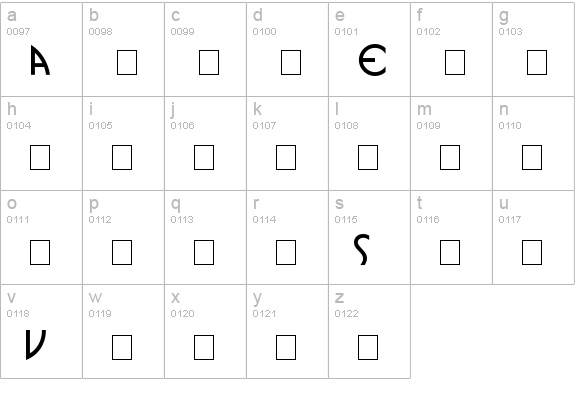
Martella Font Details
Martella is a stunning and versatile font that combines elegance with a touch of contemporary flair. Its graceful curves and clean lines make it an excellent choice for a wide range of design projects, from wedding invitations to branding materials. This font exudes sophistication and class, making it perfect for any project that requires a touch of elegance. It has a timeless quality that will never go out of style, making it a great investment for both professional designers and casual enthusiasts. But perhaps the best part about Martella font is that it is completely free! Yes, you read that right. This beautiful font can be downloaded at no cost from the trusted source FontsMarket.com. Whether you're a professional designer looking to expand your font collection or a hobbyist wanting to add a touch of style to your personal projects, Martella is the perfect choice. With its wide range of weights and styles, Martella offers endless possibilities for creativity. Whether you're looking for a bold and eye-catching headline or a delicate and elegant script, this font has you covered. Its versatility allows it to adapt to any design concept or theme, making it a truly valuable addition to any font library. Martella font is not only visually appealing, but it is also incredibly easy to use. Its legibility ensures that your message will be easily communicated to your audience, whether it's in print or on the web. Its clean and crisp lines make it a pleasure to read, while its subtle details add a touch of personality. So don't miss out on the opportunity to enhance your designs with the beauty and versatility of Martella font. Head over to FontsMarket.com today and download this incredible font for free. Your design projects will thank you for it!